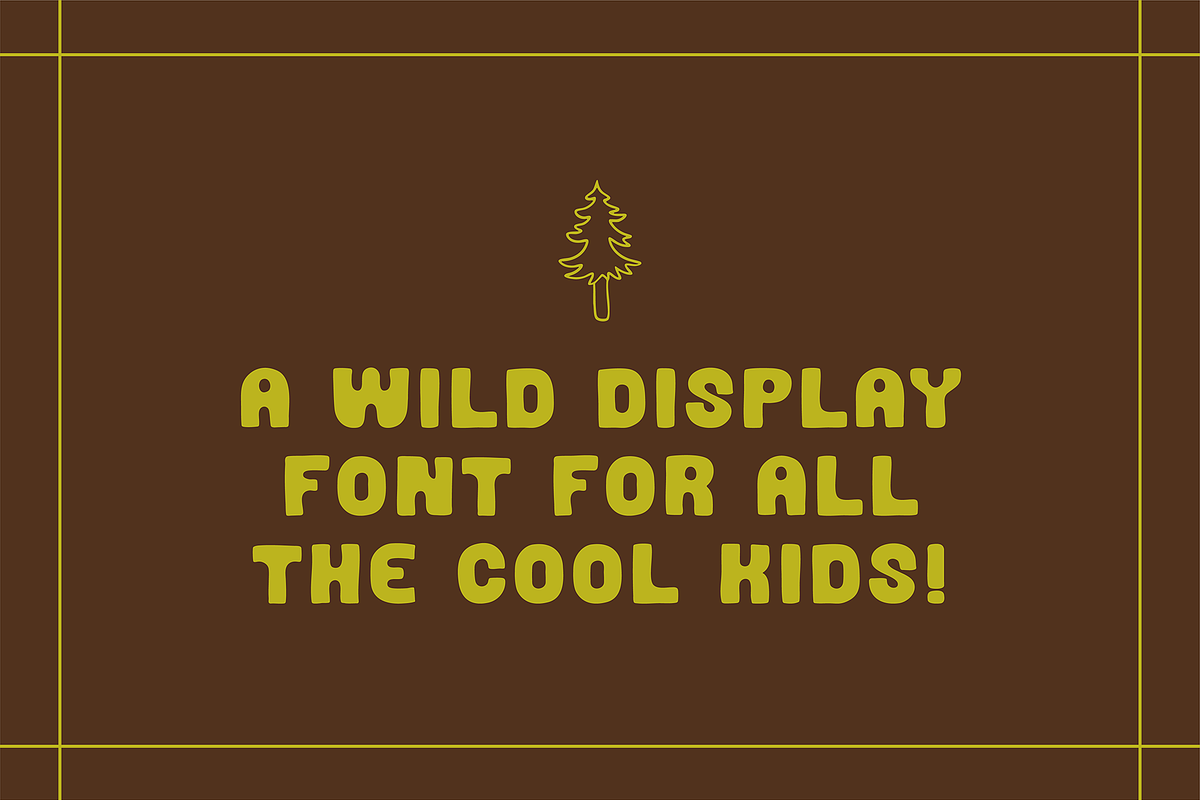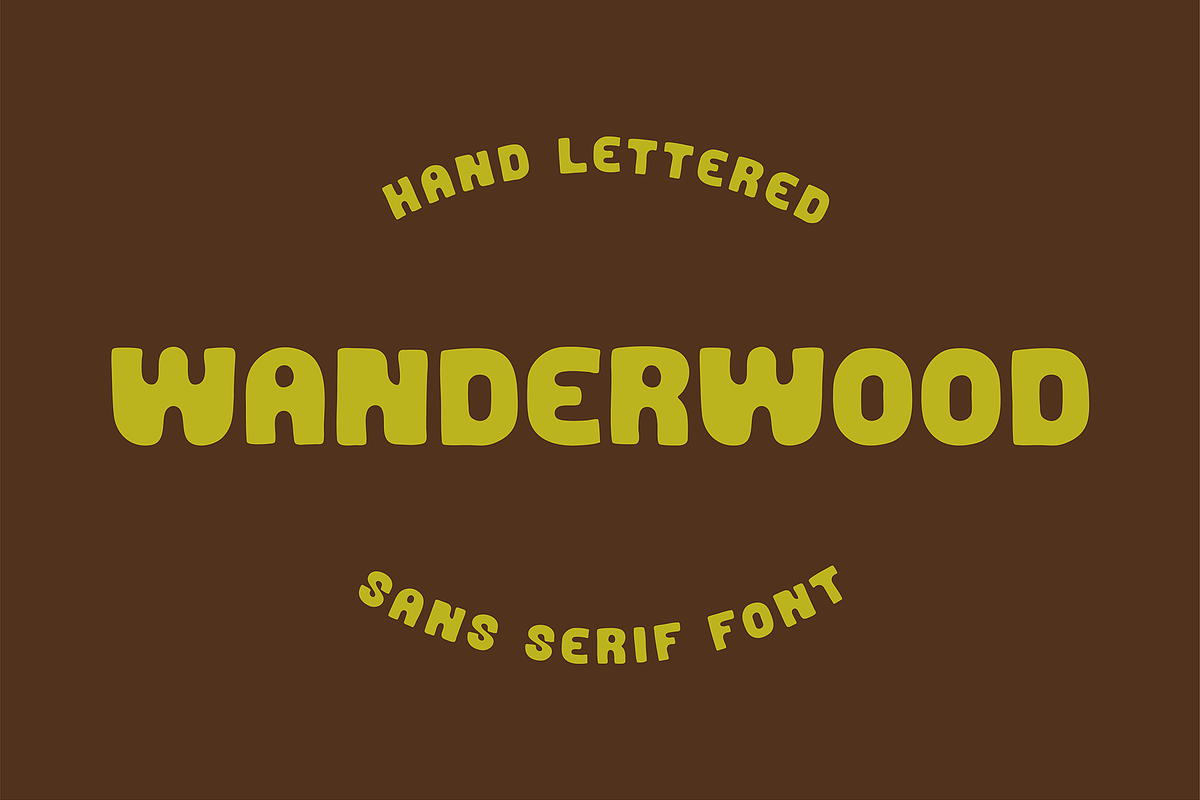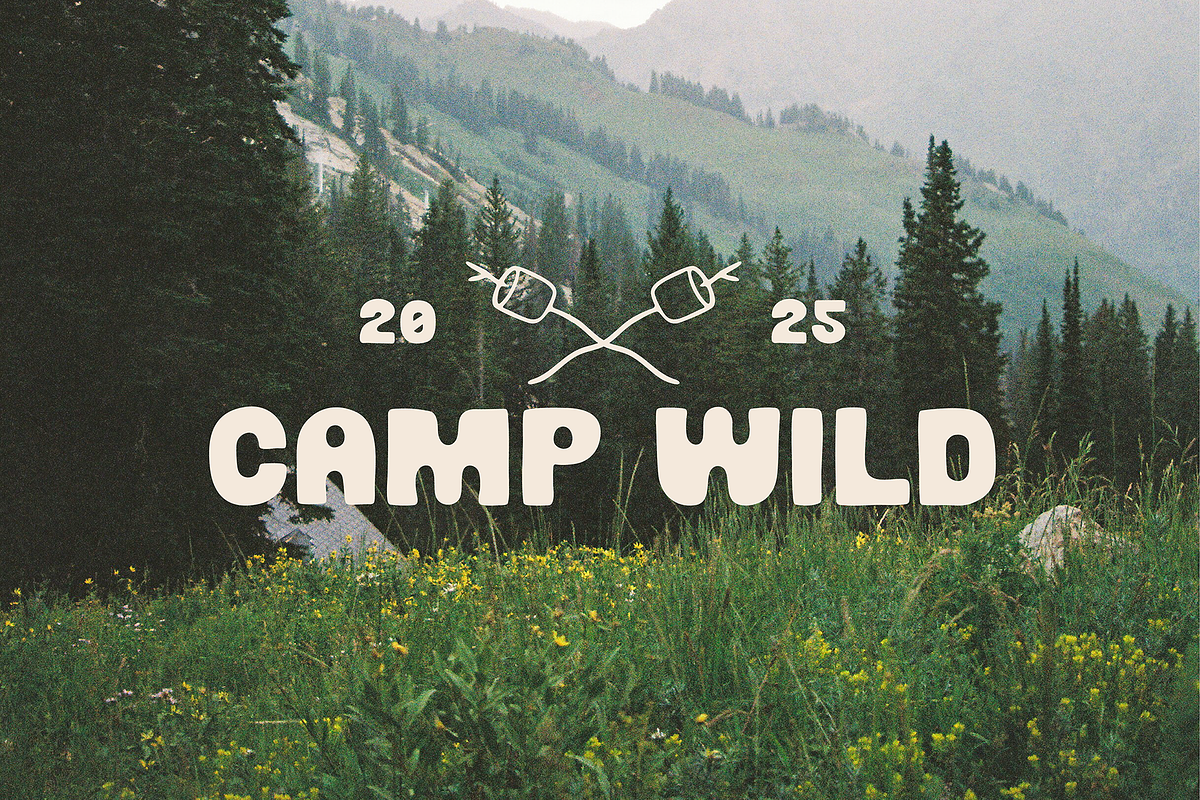
Wanderwood
Wanderwood is a hand drawn sans serif display font that feels like retro summers and campfire s’mores. Perfect for those camp inspired graphic design projects. It’s ideal for custom logos and branding. Wanderwood is a bold, retro, yet playful typeface!